Interestingly, Monotype created cheap substitutes for not only Helvetica, but all the other proprietary fonts Adobe has included with PostScript. These were created at the request of Microsoft for inclusion with its PostScript clone, TrueImage, and also included with Windows and Microsoft Office.
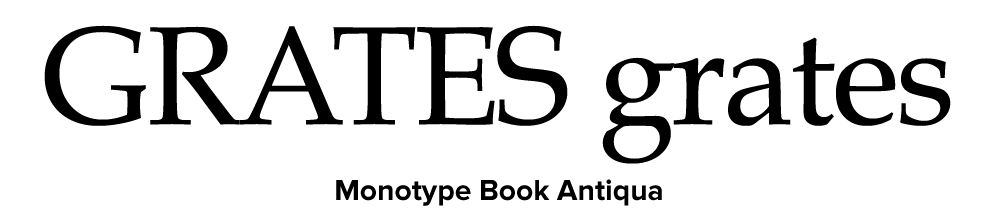
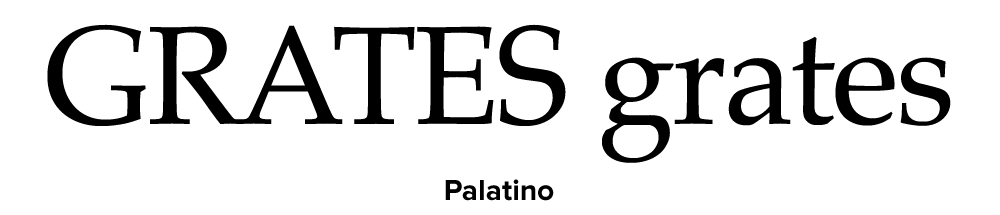
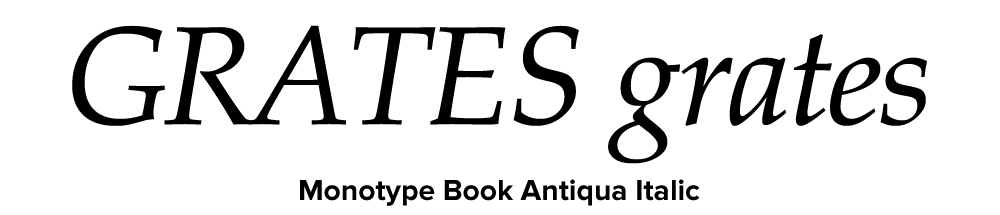
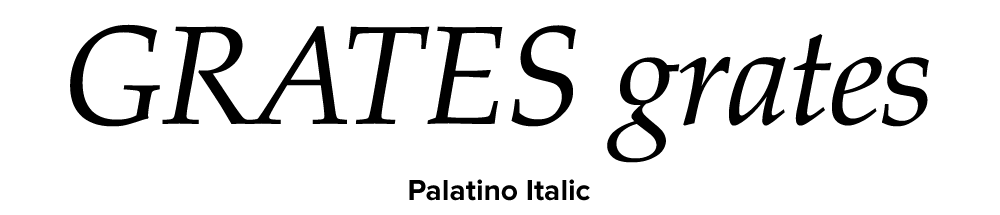
Of these other substitutes, Book Antiqua looks nearly identical to Palatino. The designer of Palatino, Herman Zapf, has been known to do off-name versions of his own typefaces for other foundries (notably Bitstream), but in this case he had nothing to do with it, other than being copied. [Interestingly, Microsoft now includes a very good—and fully licensed—version of Palatino with Windows. —MS]
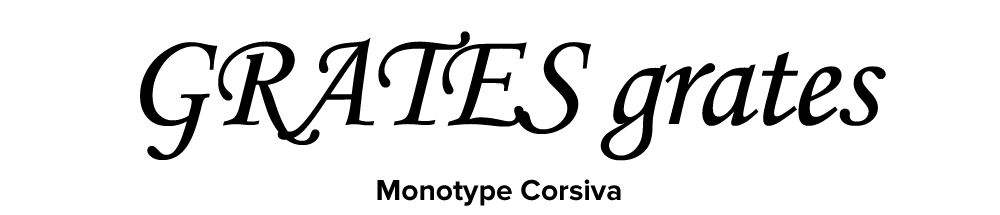
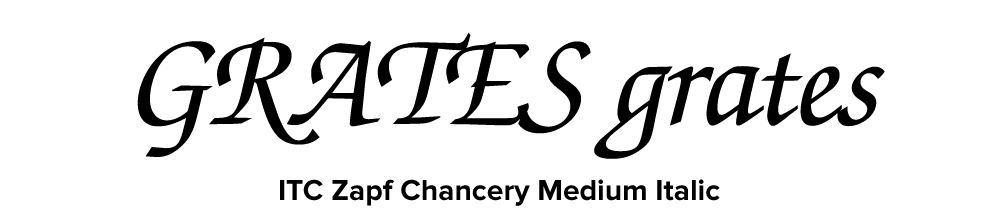
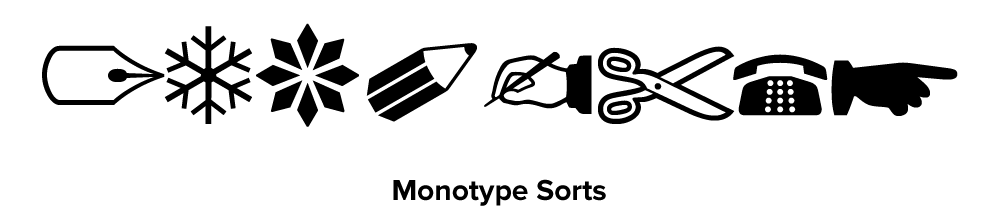
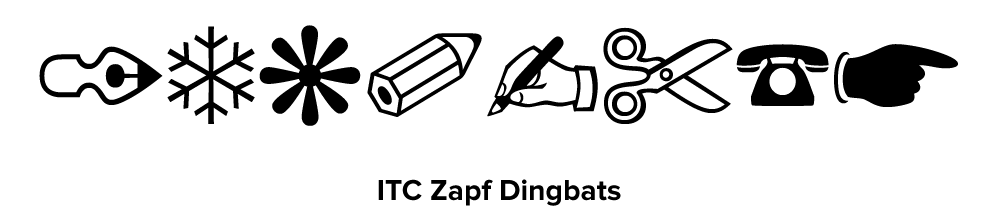
On the other hand, they created substitute fonts for two of his other typefaces, Corsiva for Zapf Chancery and Monotype Sorts for Zapf Dingbats.
As for the others, they are similar to Arial in that they are loosely based on typefaces owned by Monotype reworked to fit the proportions and weight of a specific non-Monotype font.
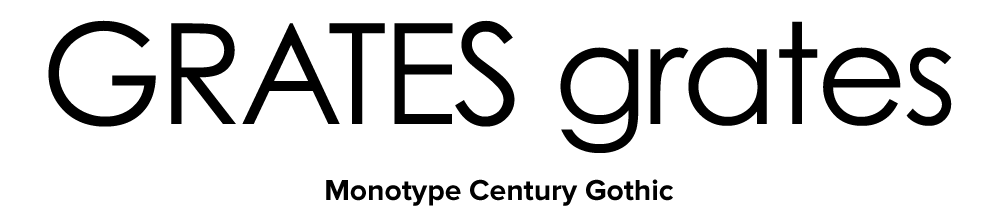
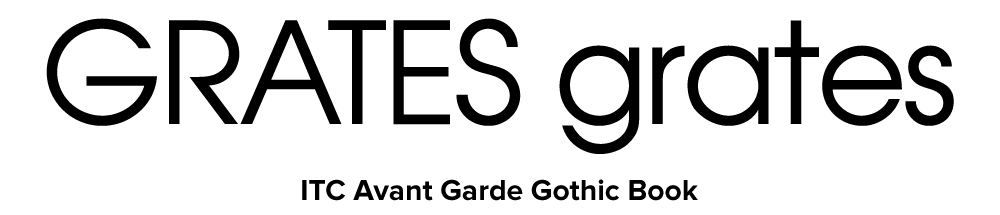
Century Gothic is Monotype’s Twentieth Century redrawn to match the weight and proportions of ITC Avant Garde Gothic. (Twentieth Century is Monotype’s version of Futura.)
Bookman Oldstyle is the original Bookman (late 19th century, ATF) redrawn to match the weight and proportions of ITC Bookman, including its cursive italic. The original Bookman had a slanted roman for italic.
Century Schoolbook is simply the earlier design upon which New Century Schoolbook is based, which both Monotype and Linotype licensed from American Type Founders. The two are virtually indistinguishable except for the extra weights offered in the Linotype version.
Times New Roman was developed originally by Monotype in the 1930s. Linotype’s Times is actually licensed from Monotype. In this case, the Monotype version is obviously more authentic, though the differences are extremely subtle.
Arial is everywhere. If you don’t know what it is, you don’t use a modern personal computer. Arial is a font that is familiar to anyone who uses Microsoft products, whether on a PC or a Mac. It has spread like a virus through the typographic landscape and illustrates the pervasiveness of Microsoft’s influence in the world.
Arial’s ubiquity is not due to its beauty. It’s actually rather homely. Not that homeliness is necessarily a bad thing for a typeface. With typefaces, character and history are just as important. Arial, however, has a rather dubious history and not much character. In fact, Arial is little more than a shameless impostor.
Throughout the latter half of the twentieth century, one of the most popular typefaces in the western world was Helvetica. It was developed by the Haas Foundry of Switzerland in the 1950s. Later, Haas merged with Linotype and Helvetica was heavily promoted. More weights were added and it really began to catch on.
An icon of the Swiss school of typography, Helvetica swept through the design world in the ’60s and became synonymous with modern, progressive, cosmopolitan attitudes. With its friendly, cheerful appearance and clean lines, it was universally embraced for a time by both the corporate and design worlds as a nearly perfect typeface to be used for anything and everything. “When in doubt, use Helvetica” was a common rule.
As it spread into the mainstream in the ’70s, many designers tired of it and moved on to other typographic fashions, but by then it had become a staple of everyday design and printing. So in the early ’80s when Adobe developed the PostScript page description language, it was no surprise that they chose Helvetica as one of the basic four fonts to be included with every PostScript interpreter they licensed (along with Times, Courier, and Symbol). Adobe licensed its fonts from the original foundries, demonstrating their respect and appreciation for the integrity of type, type foundries and designers. They perhaps realized that if they had used knock-offs of popular typefaces, the professional graphic arts industry—a key market—would not accept them.
By the late eighties, the desktop publishing phenomenon was in full swing. Led by the Macintosh and programs like PageMaker, and made possible by Adobe’s PostScript page description language, anyone could do near professional-quality typesetting on relatively inexpensive personal computers.
But there was a problem. There were two kinds of PostScript fonts: Type 1 and Type 3. Type 1 fonts included “hints” that improved the quality of output dramatically over Type 3 fonts. Adobe provided information on making Type 3 fonts, but kept the secrets of the superior Type 1 font technology to itself. If you wanted Type 1 fonts, Adobe was the only source. Anyone else who wanted to make or sell fonts had to settle for the inferior Type 3 format. Adobe wanted the high end of the market all to itself.
By 1989, a number of companies were hard at work trying to crack the Type 1 format or devise alternatives. Apple and Microsoft signed a cross-licensing agreement to create an alternative to Adobe’s technology. While Microsoft worked on TrueImage, a page description language, Apple developed the TrueType format. TrueType was a more open format and was compatible with—but not dependent on—PostScript. This effectively forced Adobe’s hand, causing them to release the secrets of the Type 1 format to save themselves from irrelevancy.
It’s been a very long time since I was actually a fan of Helvetica, but the fact is Helvetica became popular on its own merits. Arial owes its very existence to that success but is little more than a parasite—and it looks like it’s the kind that eventually destroys the host. I can almost hear young designers now saying, “Helvetica? That’s that font that looks kinda like Arial, right?”